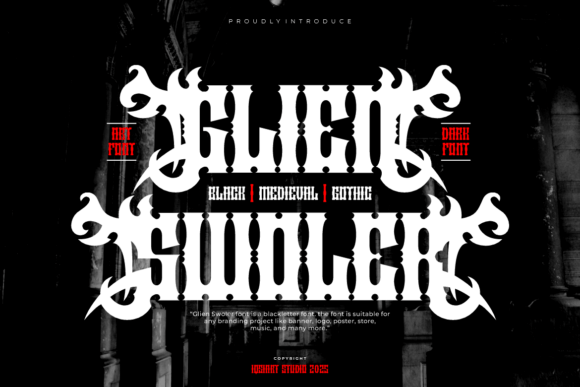
Glien Swoler Font: A Dramatic Blackletter Typeface for Dark and Powerful Designs
The Glien Swoler font is a striking blackletter typeface that seamlessly blends gothic influences with medieval artistry. This dramatic font is characterized by its sharp ornamental flourishes and heavy, dark aesthetic, making it an ideal choice for designs that require intensity and historical flair. In this article, we’ll explore the unique features of the Glien Swoler font, its inspiration, and its applications in various creative projects.
What is the Glien Swoler Font?
The Glien Swoler font is a blackletter typeface that draws inspiration from medieval art and gothic architecture. Blackletter fonts, also known as Gothic scripts, originated in Europe during the Middle Ages and were characterized by their dramatic, ornate, and often heavy appearance. The Glien Swoler font takes these traditional elements and infuses them with a modern twist, creating a unique and captivating visual identity.
Inspiration and Design
The Glien Swoler font is inspired by the intricate stone carvings and ornate manuscripts of the medieval period. Its design is rooted in the Gothic Revival style, which saw a resurgence in popularity during the 19th century. This style is characterized by its use of pointed arches, ribbed vaults, and ornate decoration. The font’s creator aimed to capture the essence of this style and translate it into a modern, usable typeface.
Key Features of the Glien Swoler Font
The Glien Swoler font boasts several key features that make it an attractive choice for designers:
- Sharp Ornamental Flourishes: The font features intricate, swirling flourishes that add a touch of elegance and sophistication to any design.
- Heavy, Dark Aesthetic: The font’s bold, dark lines create a dramatic and intense visual impact, perfect for designs that require a strong presence.
- Medieval Inspiration: The font’s medieval roots give it a unique, historical flair that sets it apart from more modern typefaces.
- Gothic Influences: The font’s gothic influences add a touch of mystery and romance to any design.
Applications of the Glien Swoler Font
The Glien Swoler font is an incredibly versatile typeface that can be used in a variety of creative projects, including:
- Metal Band Logos: The font’s heavy, dark aesthetic and medieval inspiration make it a perfect fit for metal band logos.
- Tattoo Designs: The font’s bold, ornate lines and gothic influences make it an excellent choice for tattoo designs.
- Horror Themes: The font’s dark, intense aesthetic makes it well-suited for horror-themed designs, such as movie posters, book covers, or haunted house attractions.
- Dark Branding: The font’s dramatic, bold appearance makes it an excellent choice for dark branding and powerful visual impact.
Tips for Using the Glien Swoler Font
To get the most out of the Glien Swoler font, follow these tips:
- Use it Sparingly: Due to its bold, dark aesthetic, it’s best to use the Glien Swoler font sparingly to avoid overwhelming the viewer.
- Pair it with Contrasting Fonts: Pair the Glien Swoler font with lighter, more elegant fonts to create visual contrast and add depth to your design.
- Experiment with Colors: The Glien Swoler font looks stunning in bold, dark colors, but don’t be afraid to experiment with different hues and shades to find the perfect fit for your design.
The Glien Swoler font is a dramatic, powerful typeface that is sure to make a statement in any design. Its unique blend of gothic influences and medieval artistry makes it an excellent choice for designers looking to add a touch of intensity and historical flair to their work. Whether you’re creating a metal band logo, tattoo design, or horror-themed project, the Glien Swoler font is an excellent choice.